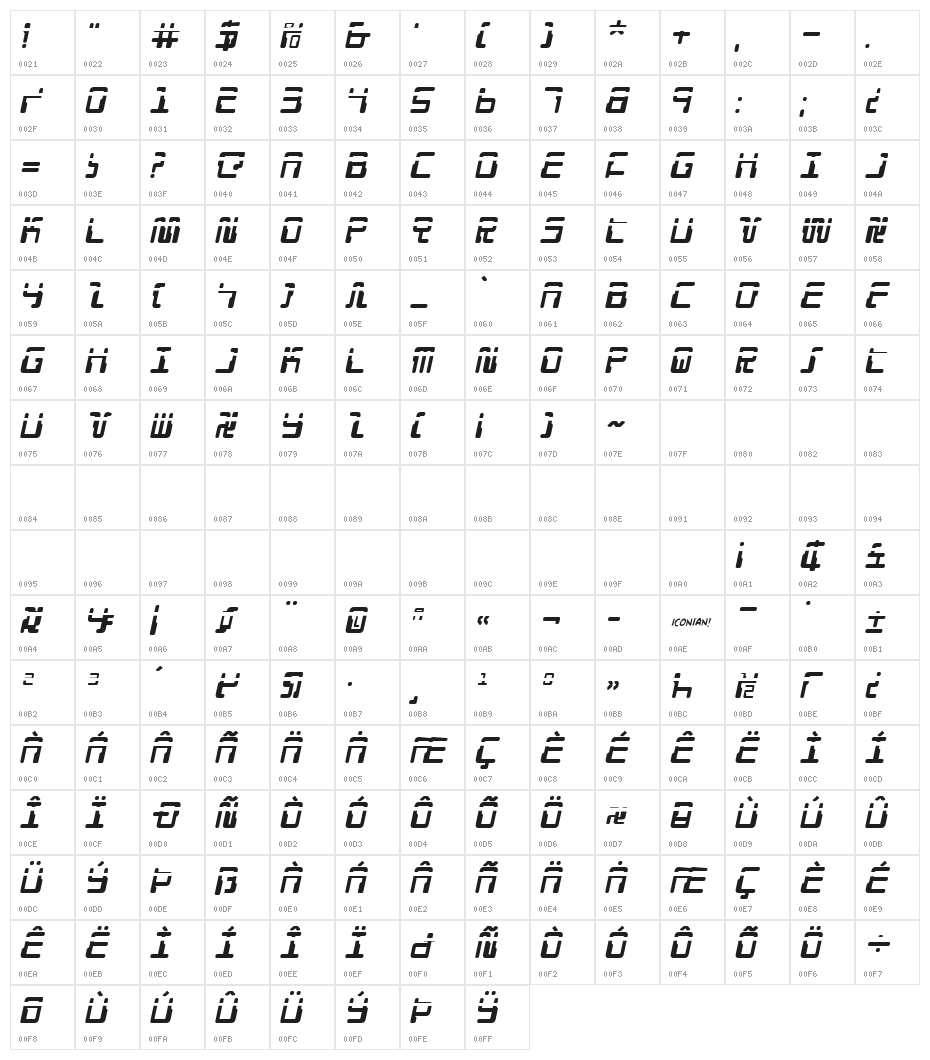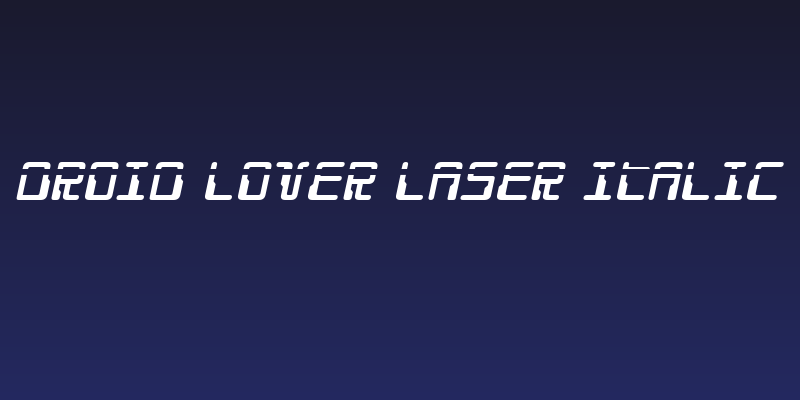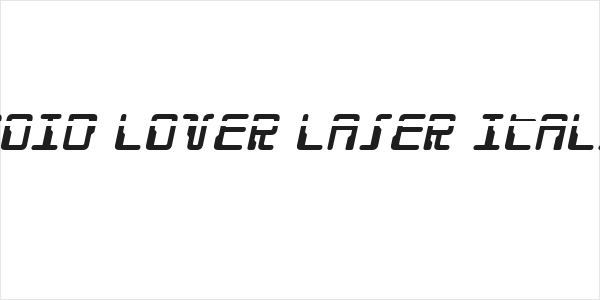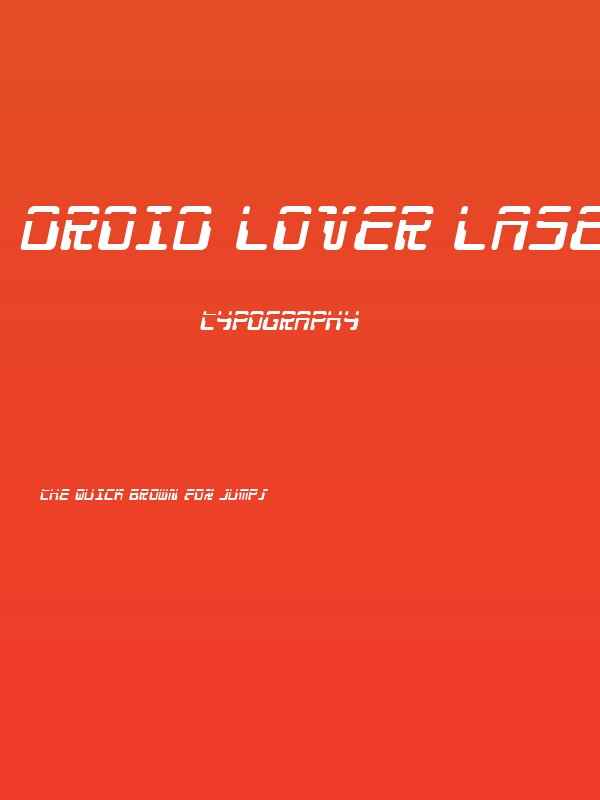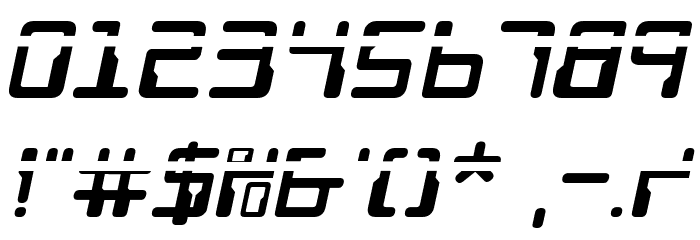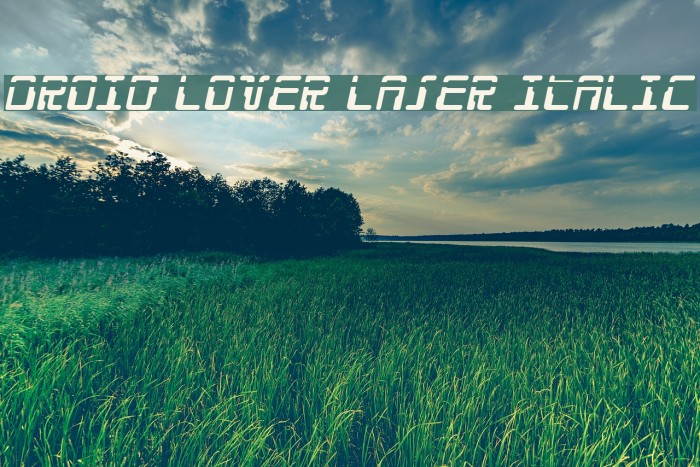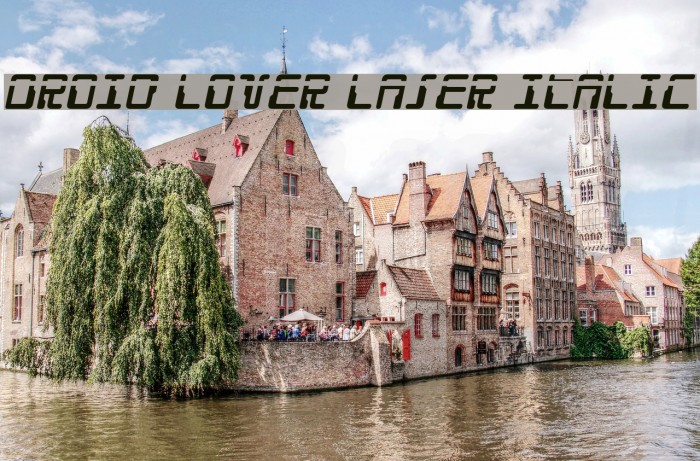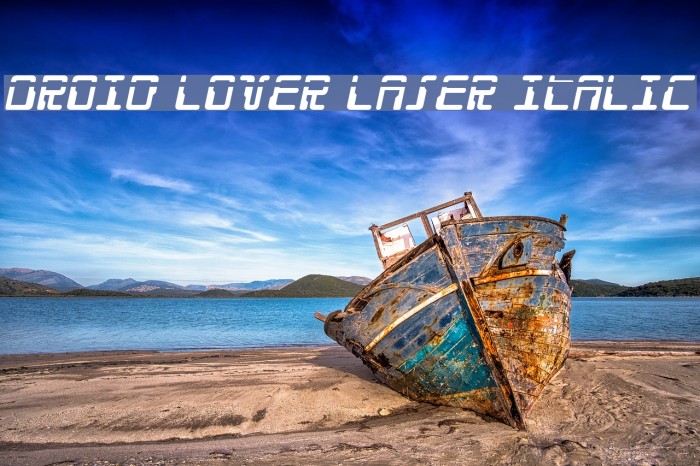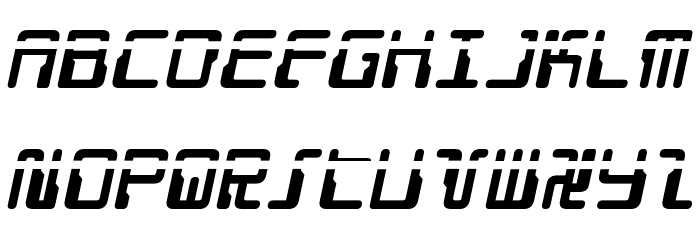
Droid Lover Laser Italic Font
Droid Lover Laser Italic Description
This font features a futuristic and sleek design, characterized by its geometric and angular letterforms. The characters are constructed with a stencil-like appearance, incorporating breaks and gaps that give it a digital and mechanical feel. The italic slant adds a dynamic and forward-moving energy, making it suitable for tech-oriented and modern themes. The uniform stroke width and consistent spacing contribute to its readability, while the unique style ensures it stands out in any design project.
| Use Case | Logos, Headlines, Posters |
| Proposed Projects | Ideal for technology branding, sci-fi movie posters, video game titles, and modern digital interfaces. |